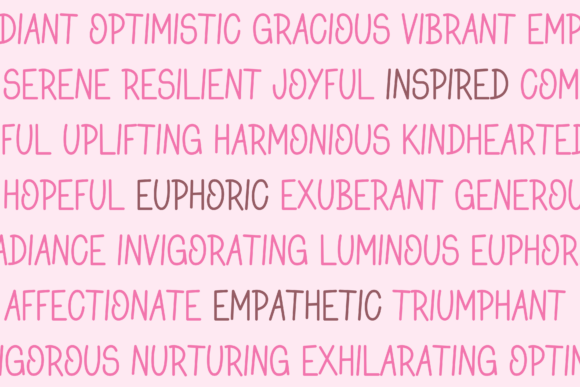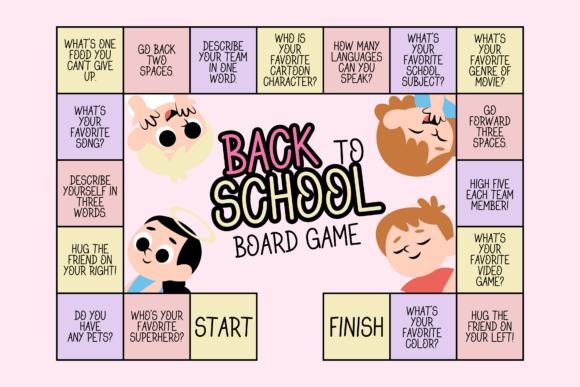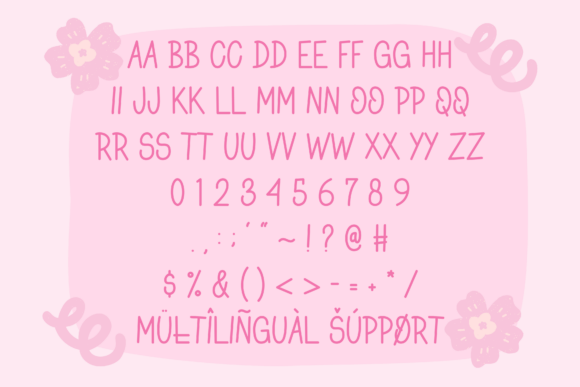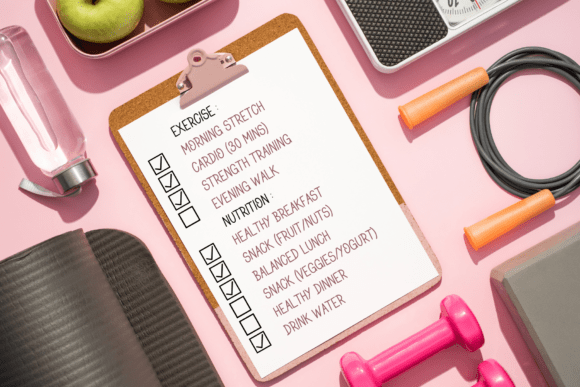
Introduction to Quizzy Popt Font
Have you ever been in the middle of a creative project, pouring your heart and soul into it, only to realize that the perfect finishing touch is just out of reach? That’s exactly what happened to many designers who discovered Quizzy Popt Font – a simple yet charming handwriting display font that elevates any design to the next level.
Perfect for social media graphics, digital planning, and kid-friendly projects, Quizzy Popt Font is a valuable addition to any designer’s toolkit. Its all-caps glyphs, numbers, and international characters make it a versatile design resource that’s perfect for branding, decor crafts, invitations, and more. With its free download option and high-quality design, Quizzy Popt Font is a must-have for anyone looking to add a personal touch to their creative projects.
Whether you’re a seasoned designer or a beginner, Quizzy Popt Font is sure to become a go-to resource for all your design needs. With its transparent background and customizable options, the possibilities are endless, making it a great addition to any creative project.
Key Features of Quizzy Popt Font
- High-quality font with a fun and playful design, perfect for creative projects that require a unique touch.
- Transparent background, allowing for easy layering and manipulation in design applications.
- High-resolution design, ideal for print and digital projects that require crisp, clear typography.
- Unique characteristics include bold lines, rounded edges, and an energetic vibe that’s sure to captivate audiences.
- Comes in a range of sizes, from 12pt to 72pt, providing flexibility for use in various design contexts.
Honest Review: Quizzy Popt Font
As a designer, I’m always on the lookout for high-quality design resources to elevate my creative projects. The Quizzy Popt Font caught my eye with its unique and playful style, so I decided to give it a try.
One of the things that really stands out about the Quizzy Popt Font is its versatility. The font comes in a variety of weights, from light to bold, making it easy to use in a range of design contexts. The font also has a transparent background, which makes it easy to combine with other design elements.
- ✨ Unique and playful style that adds a touch of whimsy to any design project
- ✨ High-quality design that looks great at a range of sizes and resolutions
- ⚠️ Limited character set, which may not be suitable for longer blocks of text
- ⚠️ May not be suitable for use in situations where a clear, legible font is required
Overall, I was impressed with the Quizzy Popt Font and think it’s a great addition to any designer’s toolkit. While it may have some limitations, its unique style and high-quality design make it a valuable resource for creative projects.
The Quizzy Popt Font is perfect for creating eye-catching titles, headings, and text elements for your creative project. You can use it for social media graphics, blog posts, and even print materials.
To get the most out of the Quizzy Popt Font, experiment with different font sizes, colors, and combinations. You can also use it in conjunction with other design elements, such as graphics and images, to create a unique and engaging visual style.